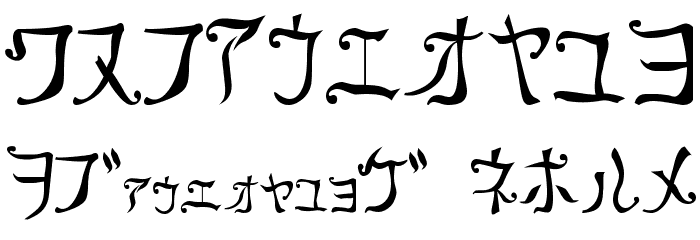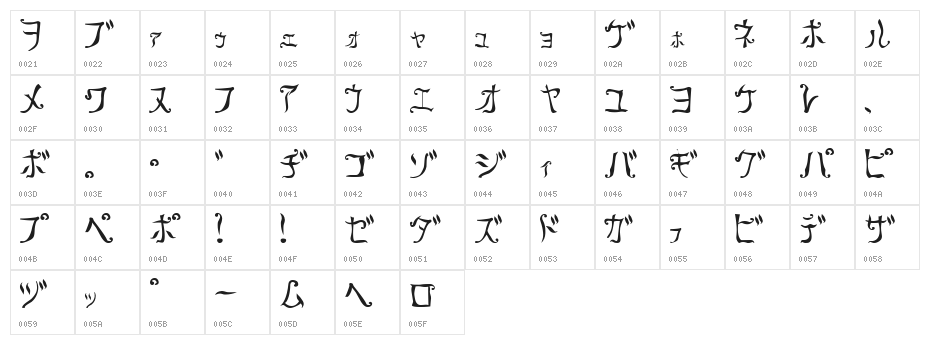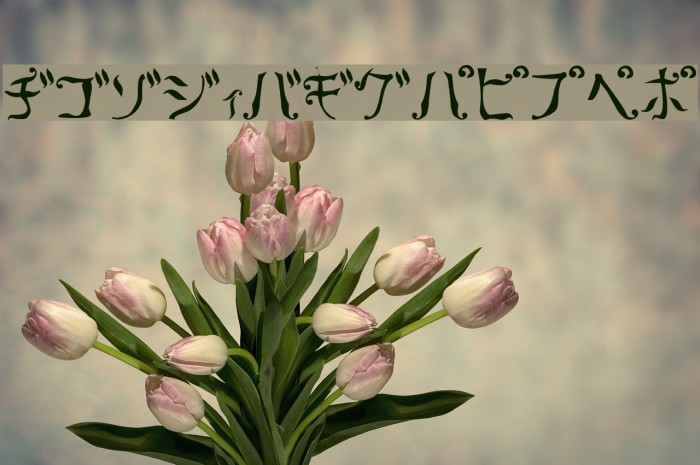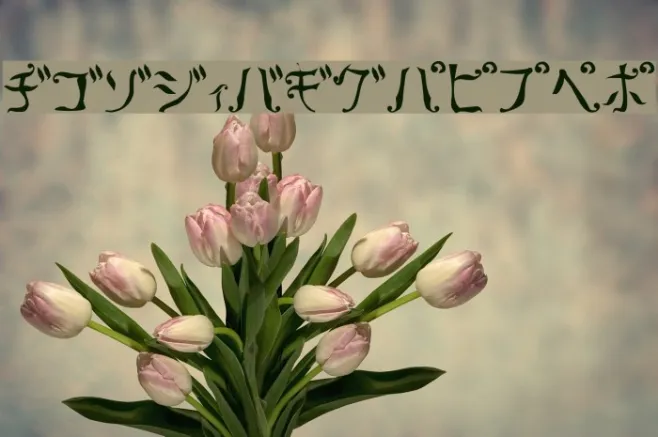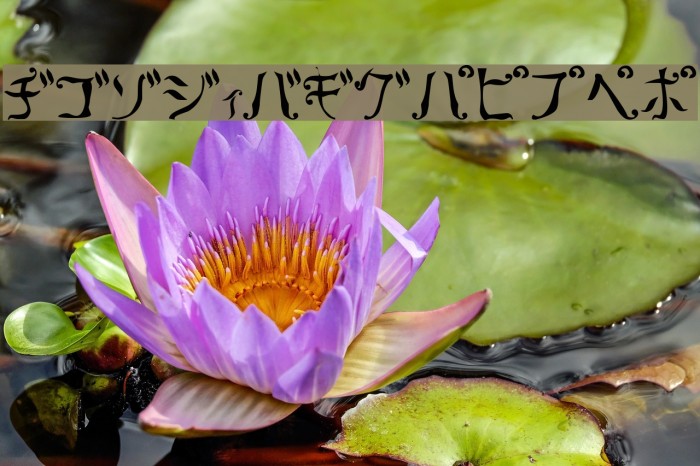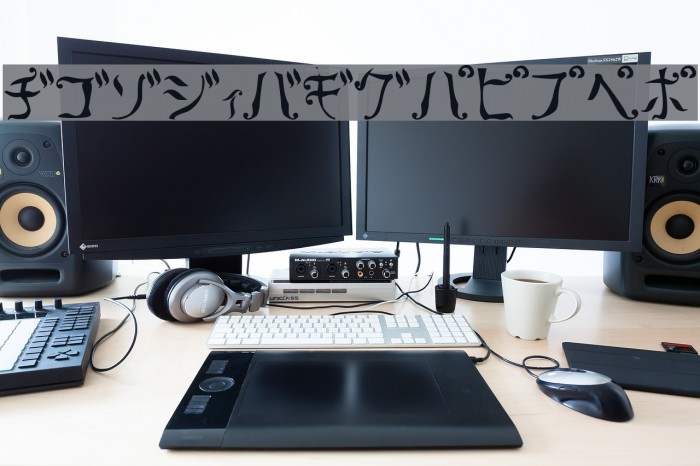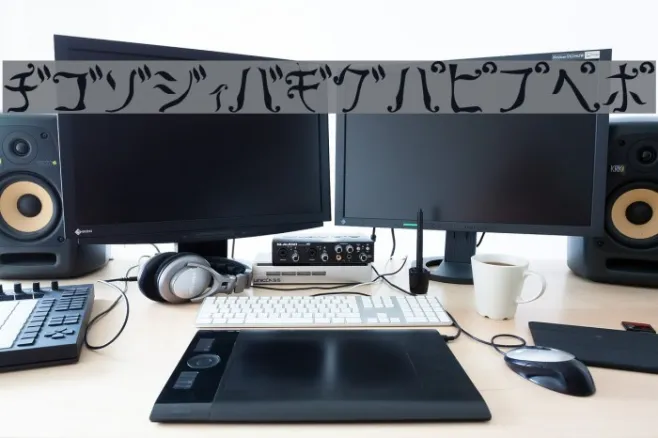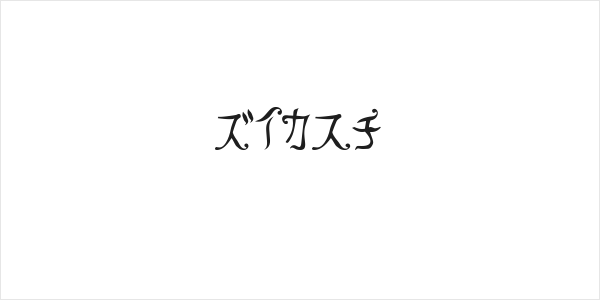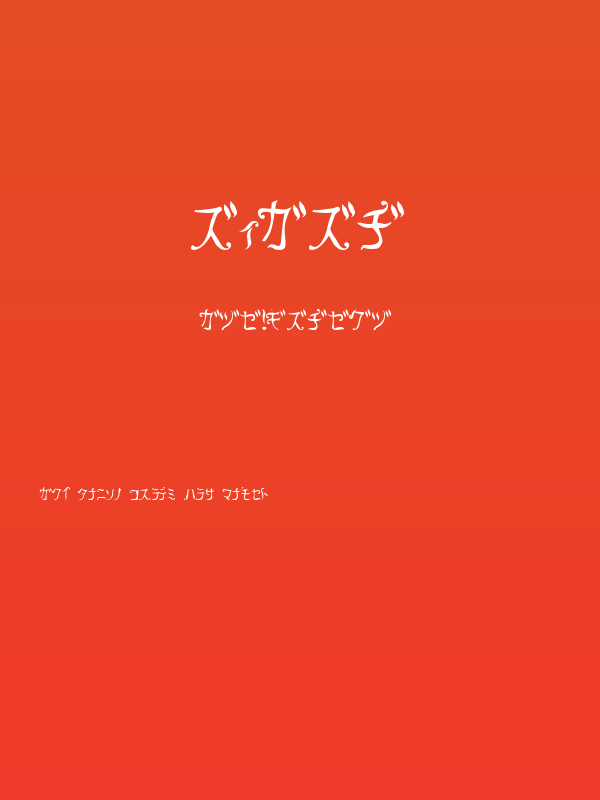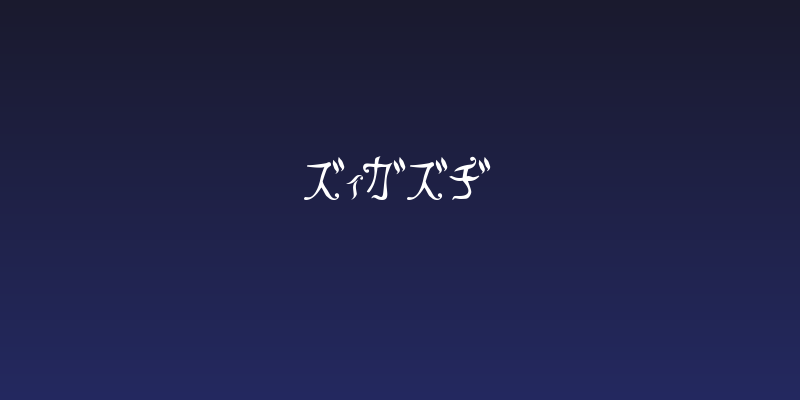
Retra Font
Retra Description
This font features a unique and artistic style with a whimsical flair. The characters exhibit a playful and decorative appearance, characterized by exaggerated curves and flourishes. Each letter is distinct, with varying stroke thickness that adds to its charm. The overall design is reminiscent of a hand-drawn or calligraphic style, making it suitable for creative and expressive projects. The font's aesthetic is both captivating and engaging, offering a sense of movement and fluidity in its presentation.